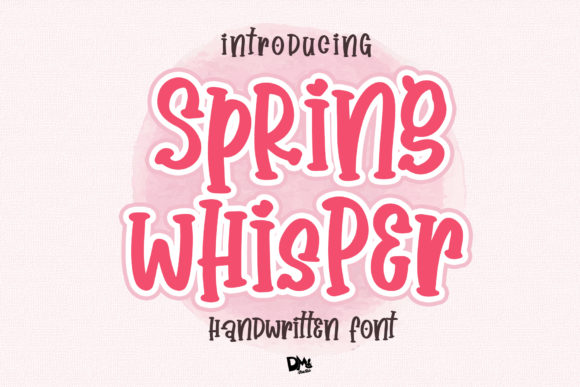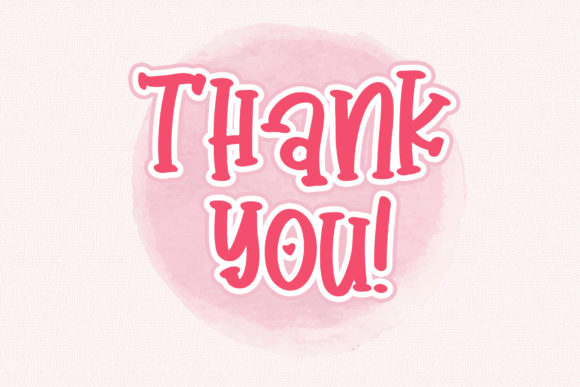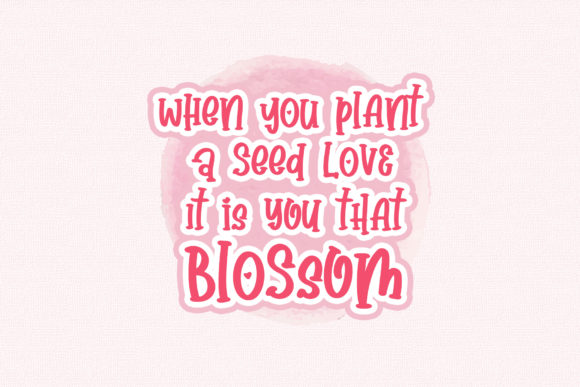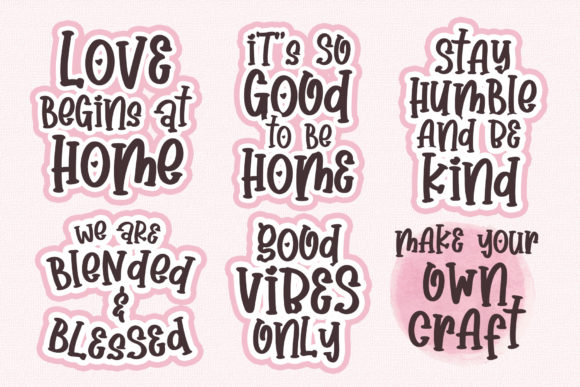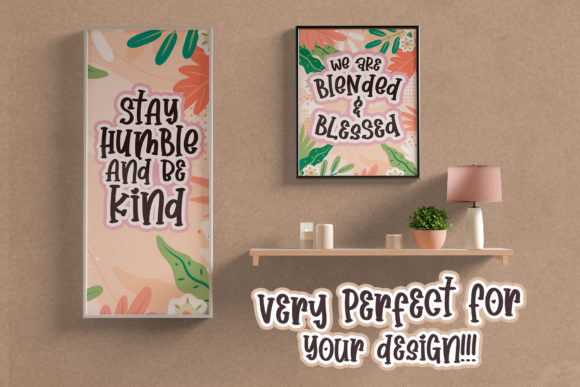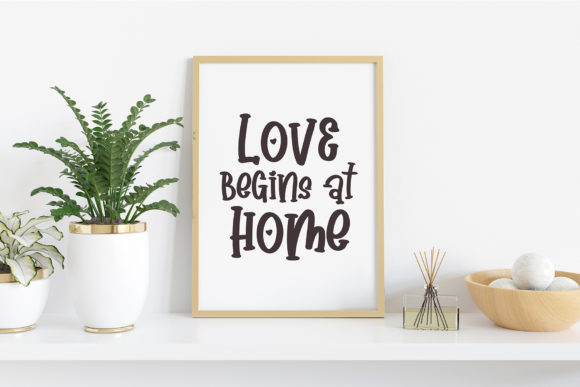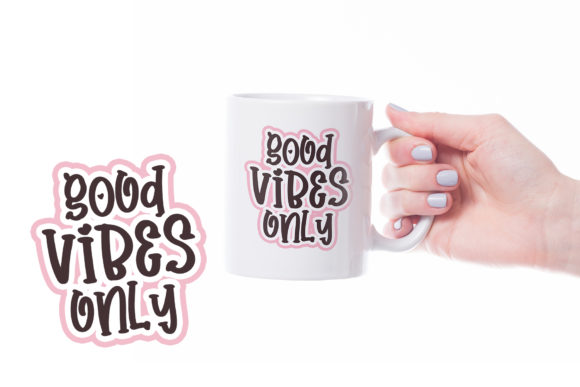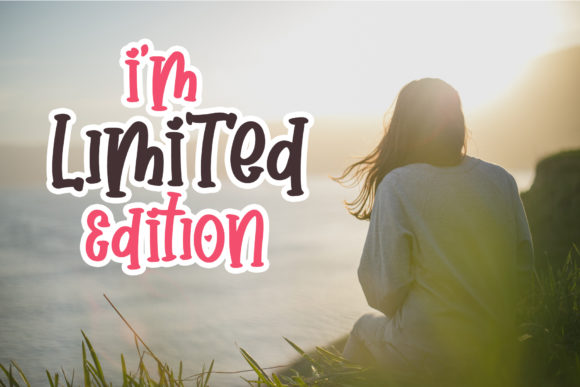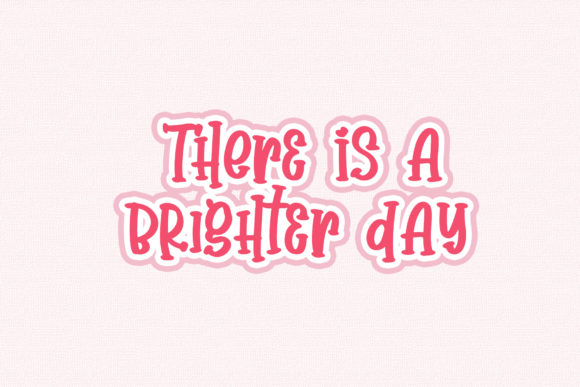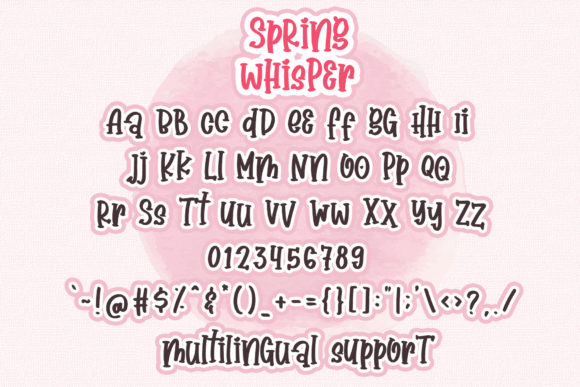
HomeScript FontsSpring Whisper Font Script Fonts Spring Whisper Font FacebookXPinterestWhatsApp Spring Whisper Font Poster 2 Spring Whisper Font Poster 3 Spring Whisper Font Poster 4 Spring Whisper Font Poster 5 Spring Whisper Font Poster 6 Spring Whisper Font Poster 7 Spring Whisper Font Poster 8 Spring Whisper Font Poster 9 Spring Whisper Font Poster 10 About Spring Whisper Font Spring Whisper is a cute and unique handwritten font. It will add an amazing look to any creative project! DOWNLOAD NOW People also explored Caramelona Font Love Unicorn Monogram Font Delightful Dog Font Filmotype Leader History Night Font Tallow Yellow Tulips Font Beautiful Rainbow Font Elvonetion Font 286 0 TagsSpring Whisper Font Previous articleBraydon FontNext articleAmazed Breath Font LEAVE A REPLY Cancel reply Comment: Please enter your comment! Name:* Please enter your name here Email:* You have entered an incorrect email address! Please enter your email address here Website: Save my name, email, and website in this browser for the next time I comment. Personal Use Free Nottingsam Personal Use Free Read more about this font Adelfa Personal Use Free Read more about this font BD Algebra Personal Use Free Read more about this font Beat My Guest Personal Use Free Read more about this font BLOG Transform Your Website: Elevate Your Typography with 7 Best Web Font Generators Are you ready to transform your website's typography from ordinary to extraordinary? Great! Today, we're diving into the world of web font generators, which... Using Fonts in Digital Marketing: Tips to Strengthen Your Brand Identity Elegant Wedding Invitation Fonts – Handwritten & Script Fonts Top 10 Handwritten Fonts That Elevate Your Designs